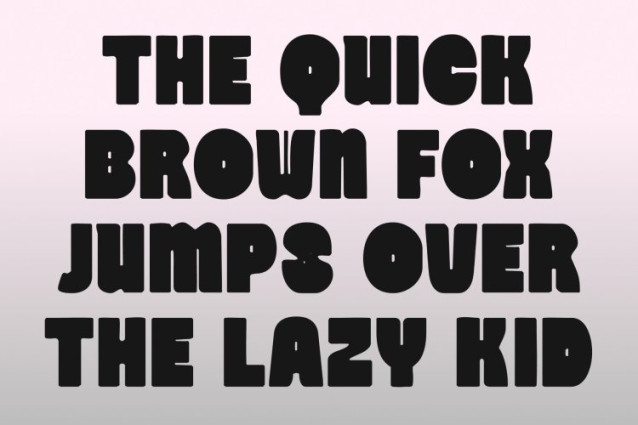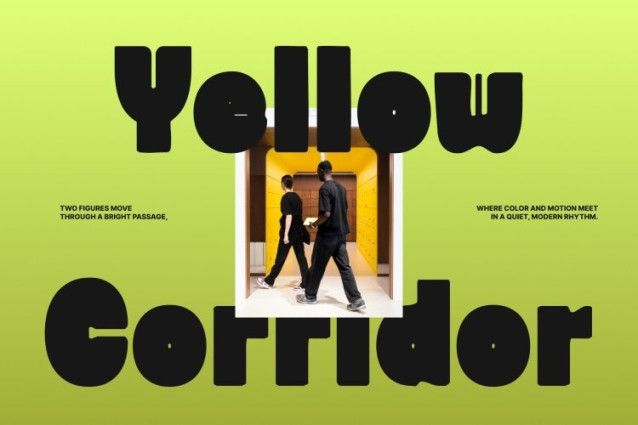
CS Whitney Drawn Font
CS Whitney Drawn Font This is a bold, chunky display sans serif font designed to deliver instant visual impact. Its blocky, heavy letterforms communicate confidence and modern strength, while the drawn effect introduces a lively, handcrafted touch. This combination makes the font feel powerful yet approachable, perfect for designs that want to stand out with character.
Thick Strokes for Maximum Visual Impact
Built with thick strokes and clean construction, this font commands attention in headlines, posters, and product packaging. Its substantial weight ensures excellent visibility across print and digital media, allowing messages to feel bold, energetic, and unmistakably present.
Playful Drawn Details for Creative Expression
The subtle drawn details add quirky charm and expressive variation to each character, preventing the bold forms from feeling rigid or mechanical. These playful nuances bring warmth and creativity, making the font ideal for branding, social media graphics, merchandise, and promotional materials that aim to feel fun and engaging.
Versatile Font with Dynamic Appeal
From energetic youth-focused campaigns to modern lifestyle branding, this font adapts effortlessly across creative contexts. Its blend of bold structure and playful personality gives designers a versatile display font that delivers strong impact while maintaining a friendly, expressive tone.